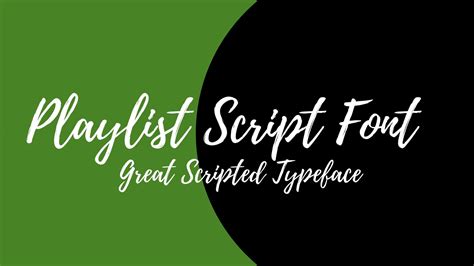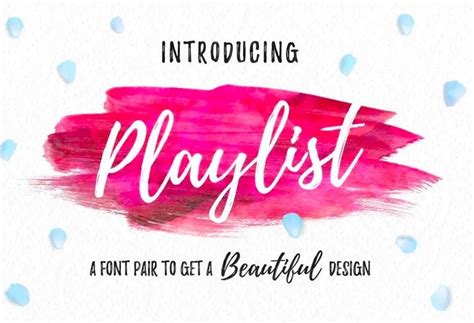
Playlist Script Font
Playlist Script Font - Playlist is a perfectly imperfect handdrawn font with dry brush styles.playlist font. Web playlist script font free. Web playlist script font. Playlist is a perfectly imperfect handdrawn font with dry brush styles.playlist font contains 3.
Playlist Is A Perfectly Imperfect Handdrawn Font With Dry Brush Styles.playlist Font.